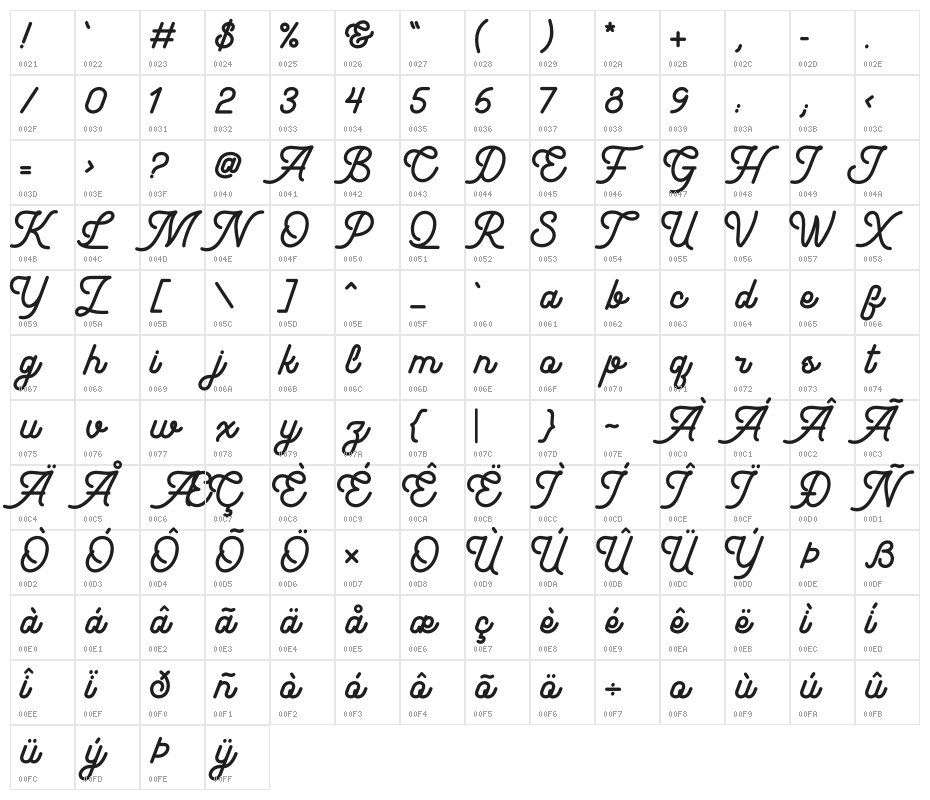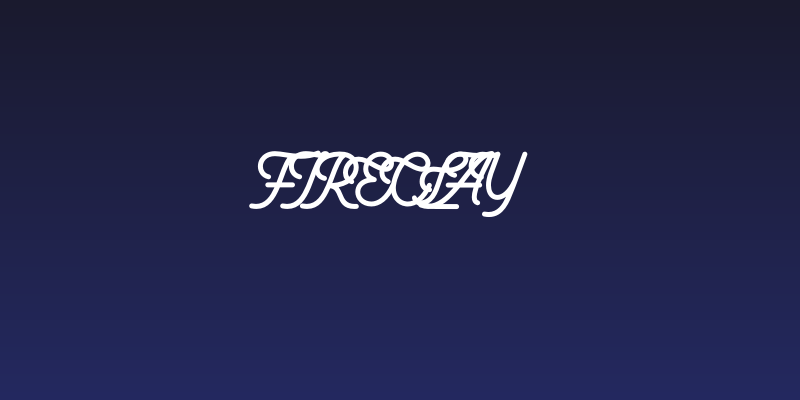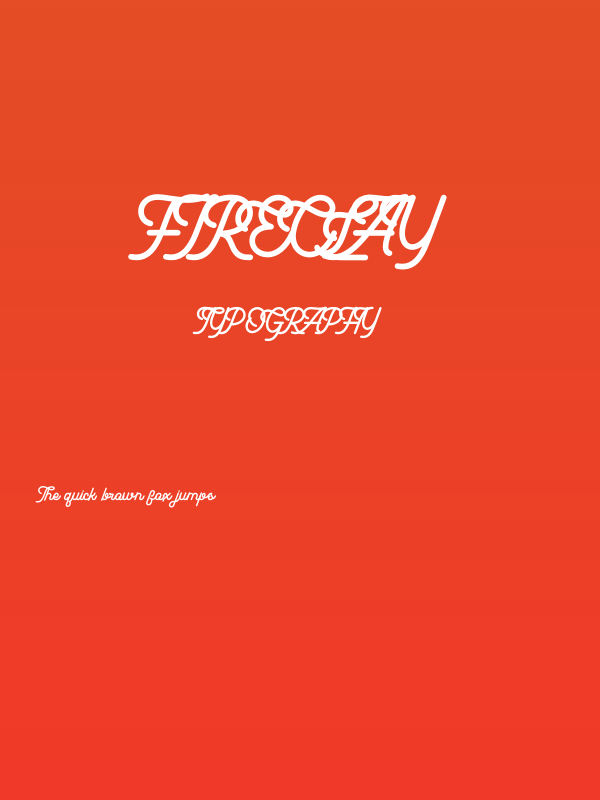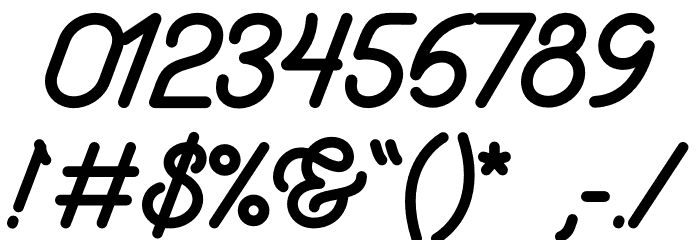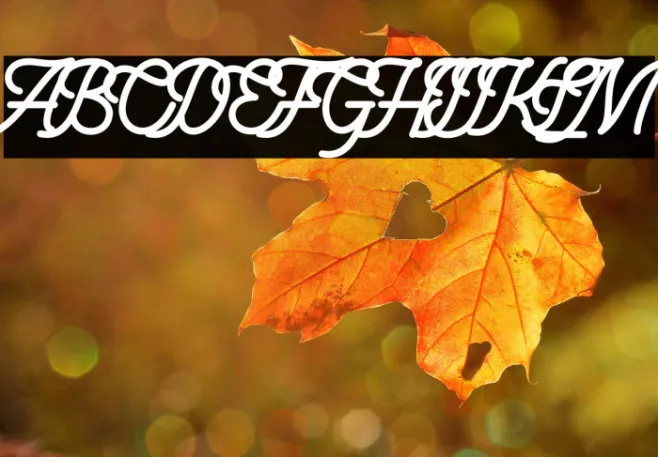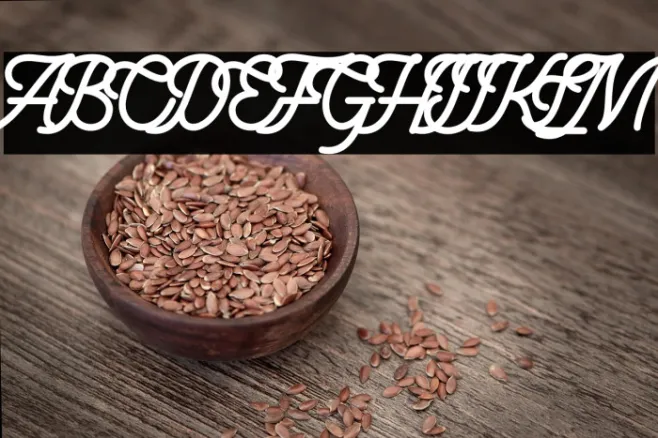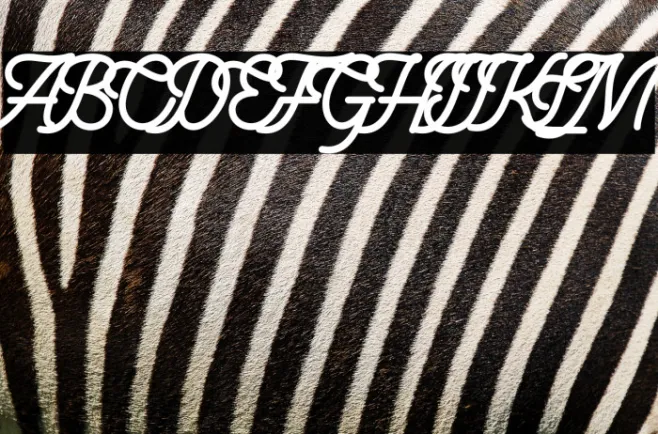
Fireclay Font
Fireclay Description
This font features a flowing, cursive style with smooth, interconnected letters that convey elegance and fluidity. The uppercase letters are bold and prominent, while the lowercase letters maintain a consistent flow, enhancing readability. The numerals are well-balanced, complementing the overall script style. Special characters are designed with the same fluid strokes, ensuring a cohesive look across all elements. The font's design is both classic and modern, making it versatile for various applications.
| Proposed Projects | Ideal for wedding invitations, elegant branding, greeting cards, and decorative headlines. |